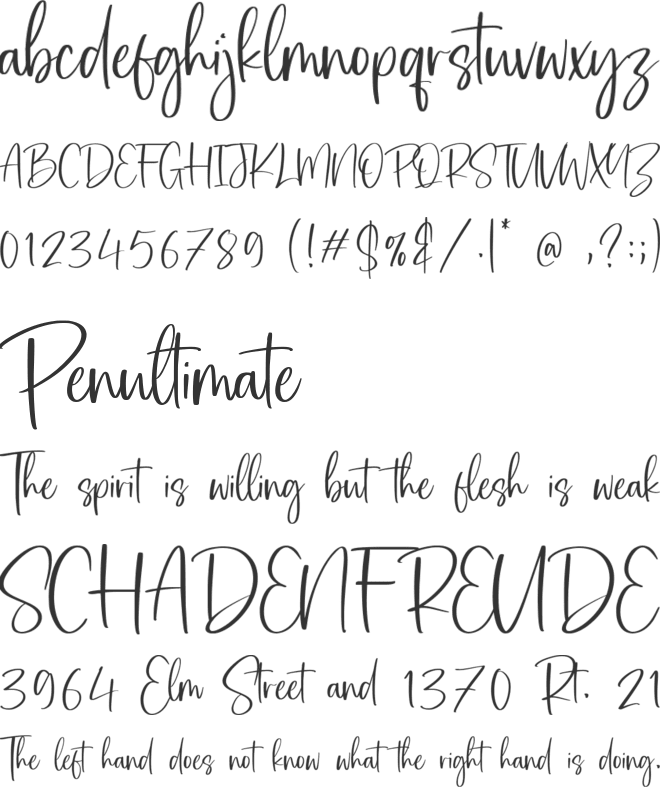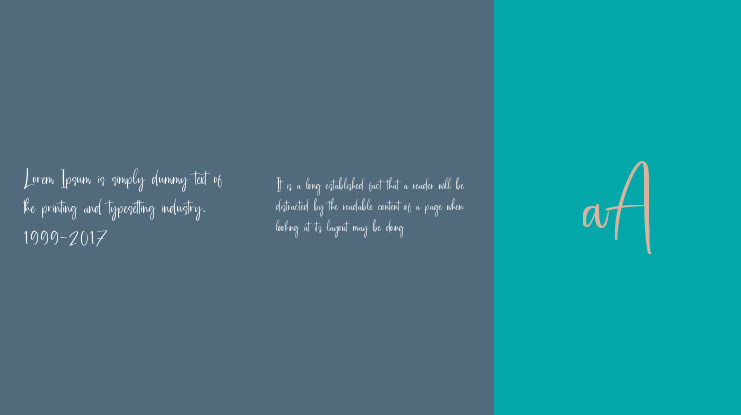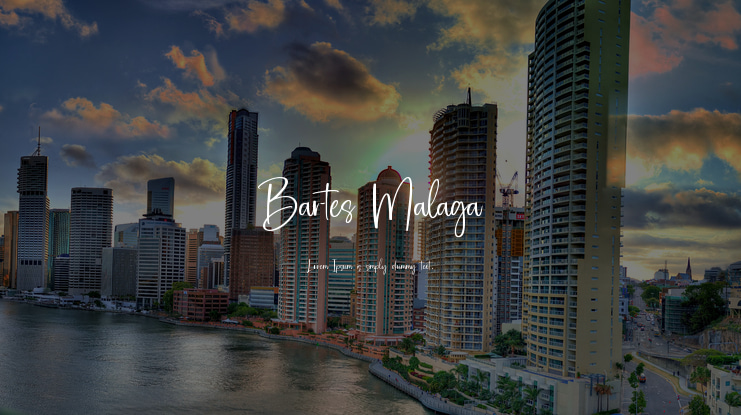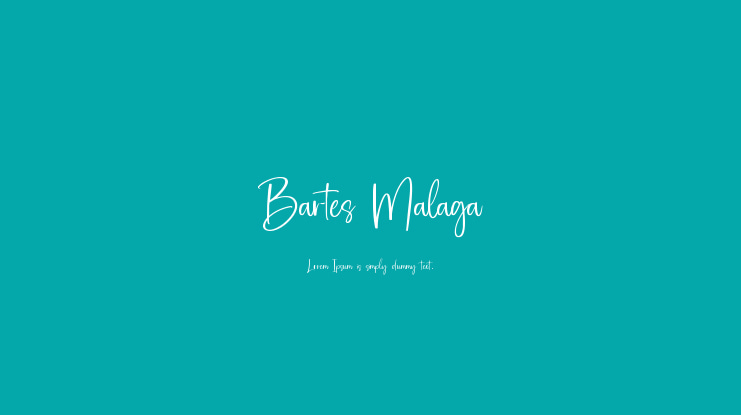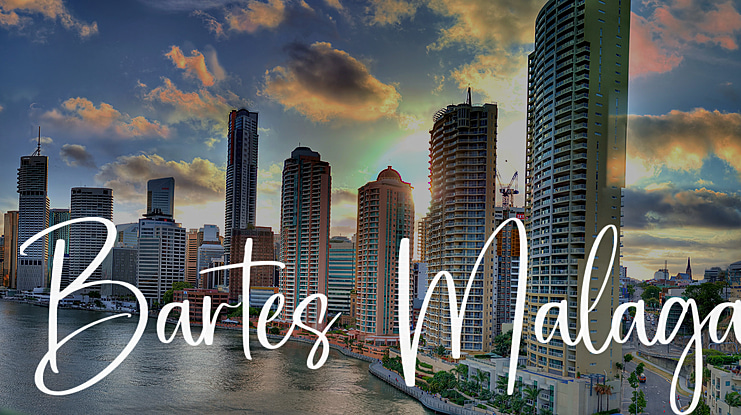
Bartes Malaga Font
Proudly Present, Bartes Malaga Font.
Bartes Malaga is a Modern Calligraphy Font.
Bartes Malaga is perfect for product packaging, branding project, megazine, social media, wedding, or just used to express words above the background.